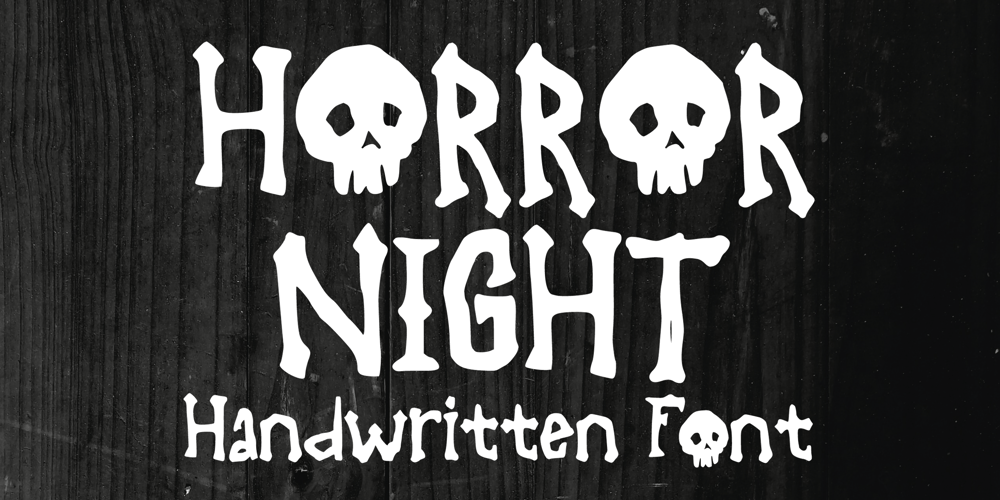
Horror Night Font Family was designed by Gabriel Valentinus and published by Mvmet. Horror Night contains 1 styles and family package options. Horror Night is a very cool bones and skeleton horror display font. It will be perfect for your horror and Halloween-themed needs! You can use it for anything ranging from t-shirts and clothing, to your scary book designs, Halloween party needs, greeting cards, stickers, posters, banners, or anything that needs a horror touch. Try it to create fabulous designs and feel the horror and Halloween vibes with it!